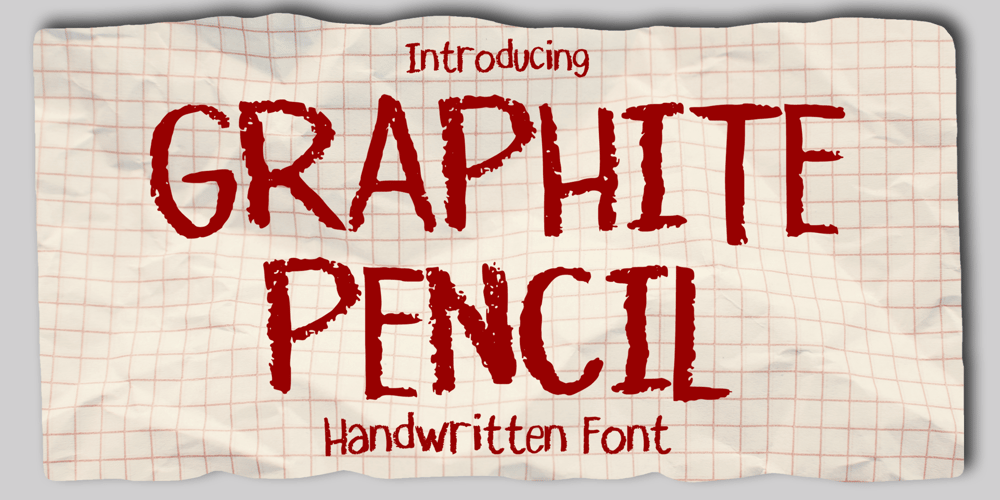
Graphite Pencil Font Family was designed by Gabriel Valentinus and published by Mvmet. Graphite Pencil contains 1 styles and family package options. Graphite Pencil is a fun handwritten font with pencil or graphite texture that you can use it for anything ranging from t-shirts, book designs, packaging, and greeting cards to stickers and posters, or anything that needs a casual touch, it will be your perfect font to pick. Fall in love with its incredibly versatile style, and use it to create lovely designs!